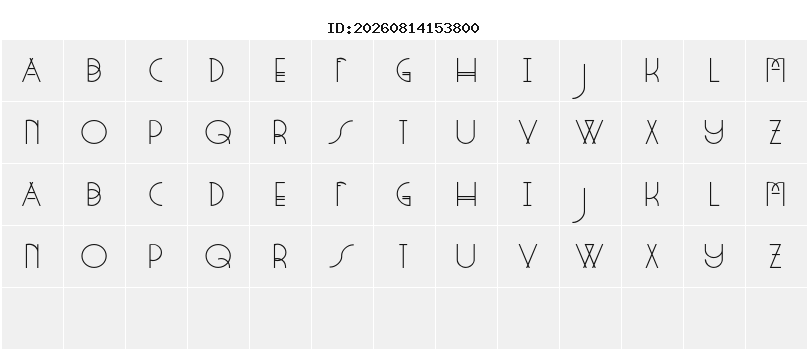
• Font Name: Strange Rituals
• Full Font Name: StrangeRituals-Regular
• Designer: =^_^=
About Strange Rituals.otf
Strange Rituals.otf is a modern, elegant sans-serif font designed for ultimate readability and visual harmony. Perfect for branding, headlines, web design, and print materials.